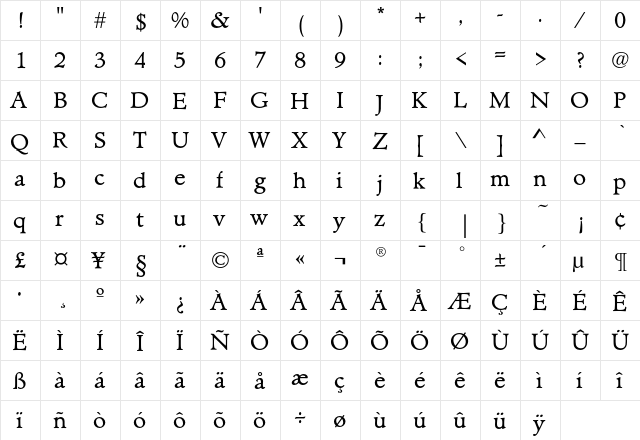
MinisterEF Book
Design Context for MinisterEF Typeface
MinisterEF is a composed and adaptable typeface that performs quietly and consistently across a wide range of design contexts.
Pro Tip: Pair MinisterEF with a font of contrasting weight or personality to build a more expressive typographic hierarchy.